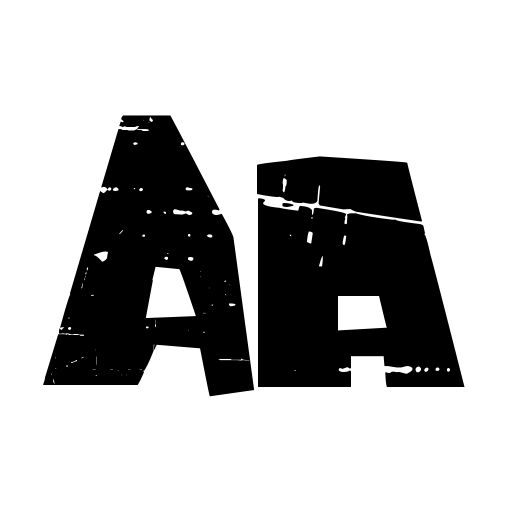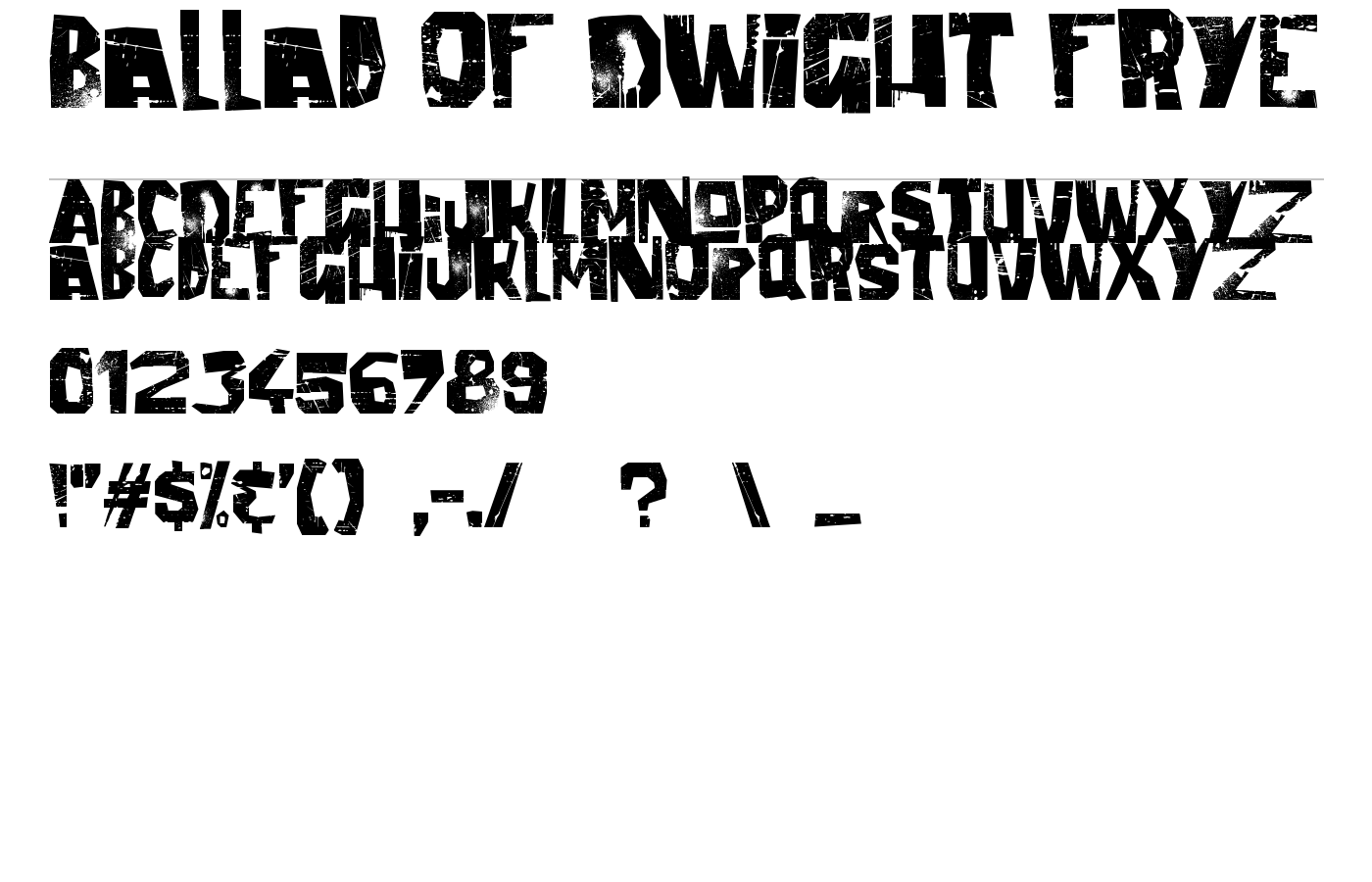
Ballad of Dwight Frye is a bold, distressed sans serif font that features rough, irregular edges and a weathered texture, giving it a gritty, raw character. Its tall, narrow letterforms with uneven strokes create a strong, rebellious vibe ideal for edgy, horror, or underground-themed designs, making it perfect for posters, album covers, and branding seeking a bold, unconventional look.
Ballad of Dwight Frye Font